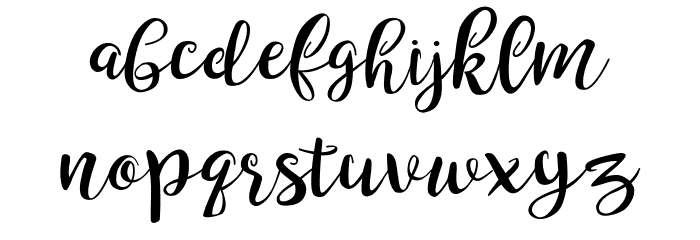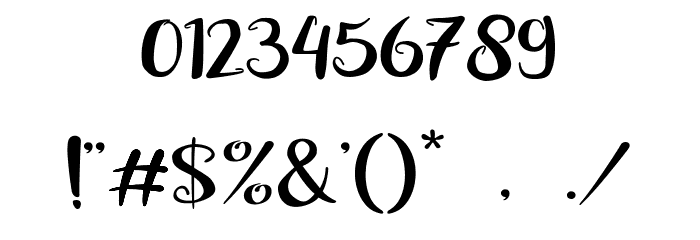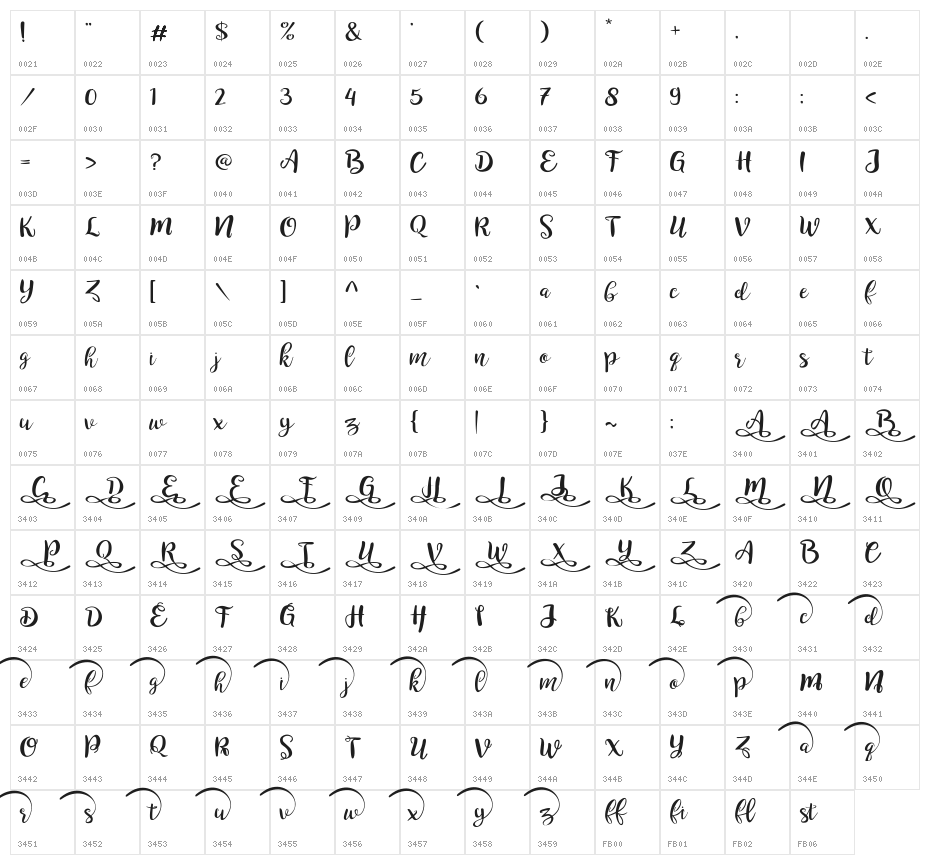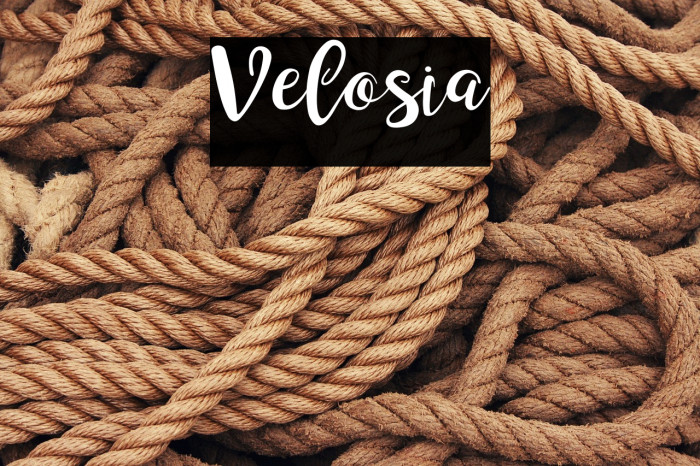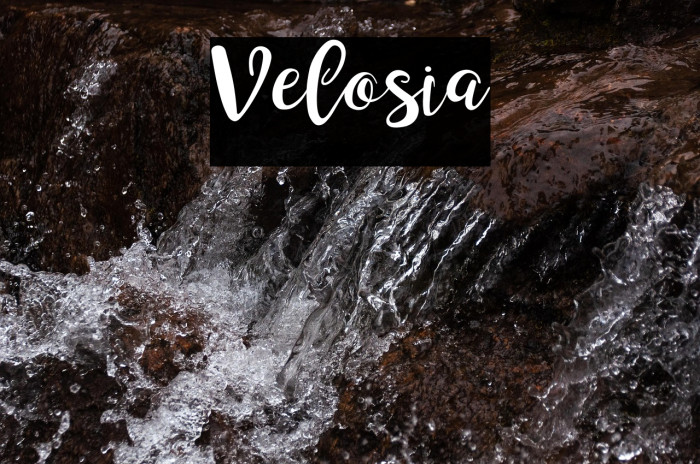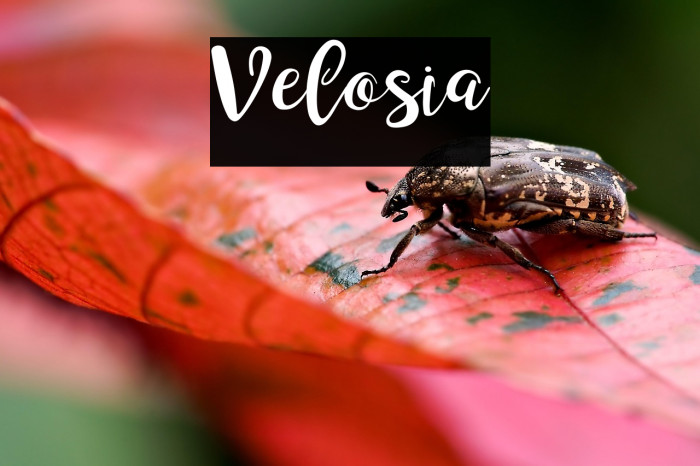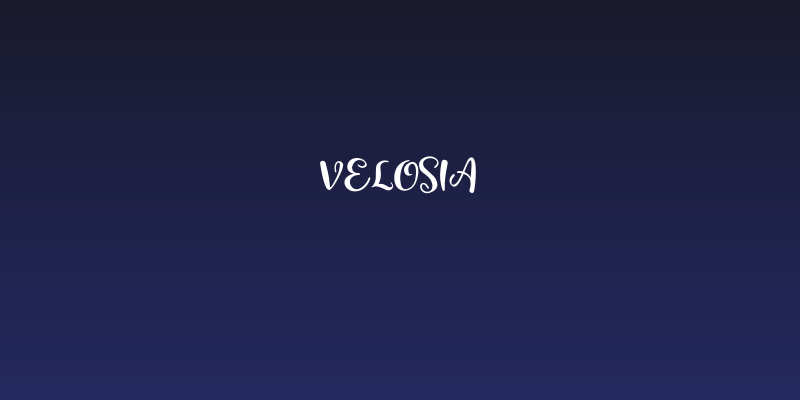
Velosia Font
This font features a bold, flowing script style with a modern flair. The characters are elegantly crafted with smooth curves and a consistent stroke width, giving it a cohesive and harmonious appearance. The uppercase letters are slightly more ornate, with sweeping lines and flourishes that add a touch of sophistication. The lowercase letters maintain a balanced and readable form, making it suitable for various design applications. The numerals and special characters are designed to match the overall aesthetic, ensuring a seamless integration in any project.
A bold, modern script font with elegant curves and consistent stroke width.
- Proposed Projects: Ideal for wedding invitations, branding, logo design, and elegant packaging.
- Use Case: Logos, Headlines, Invitations